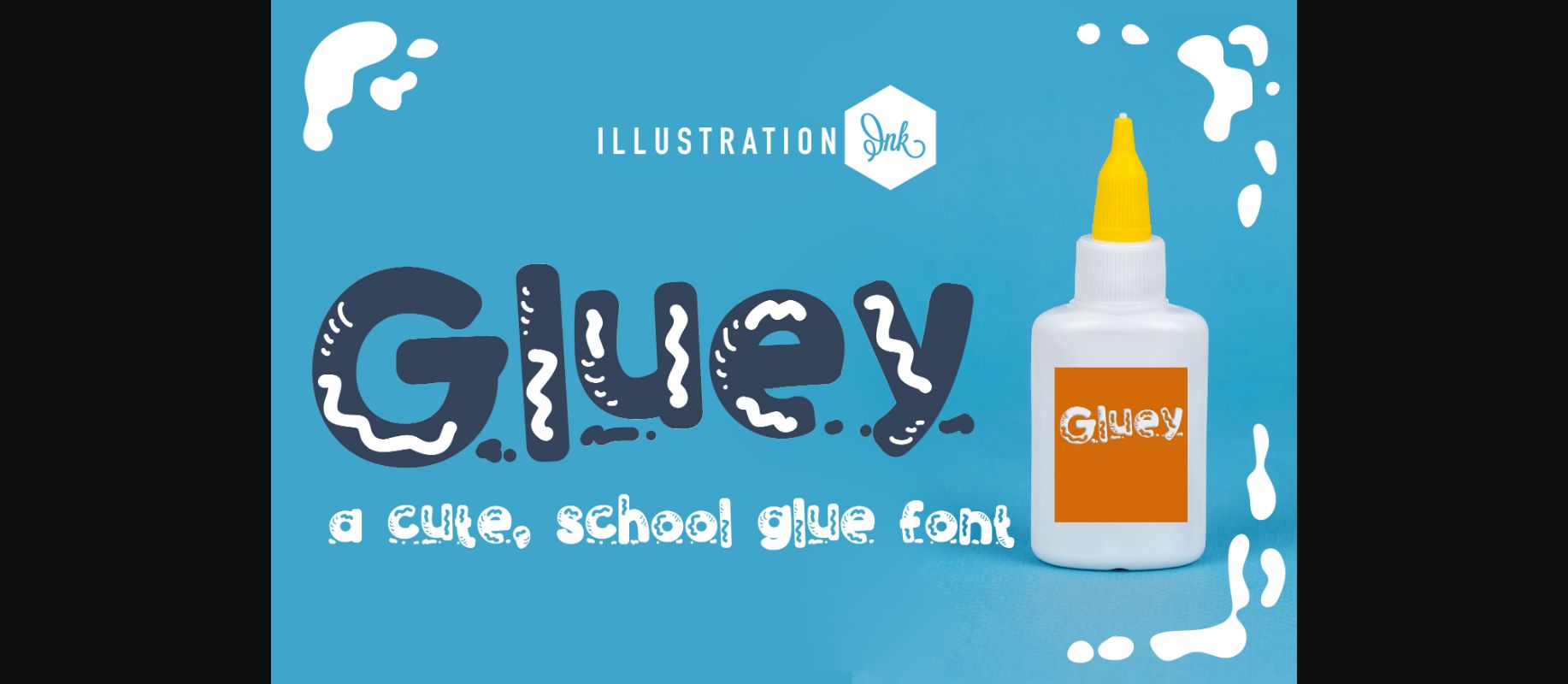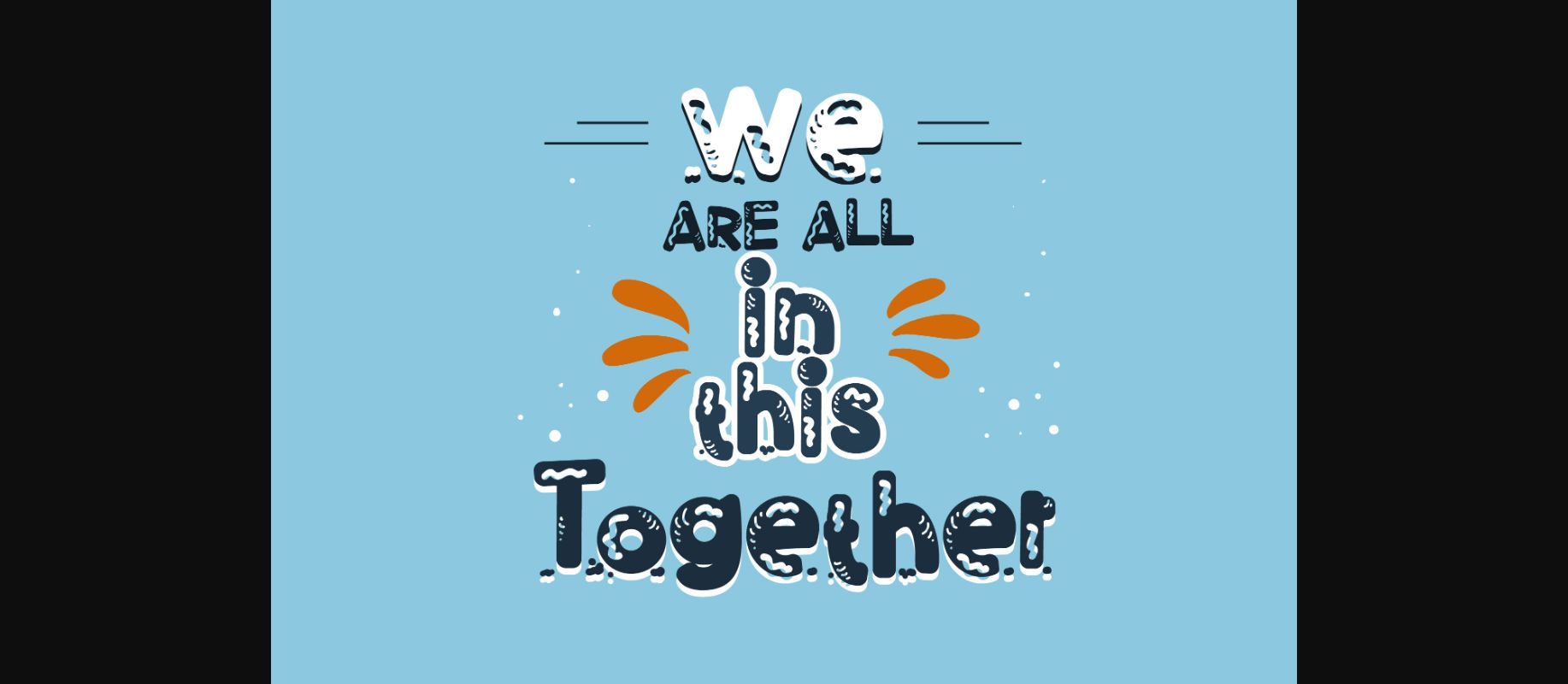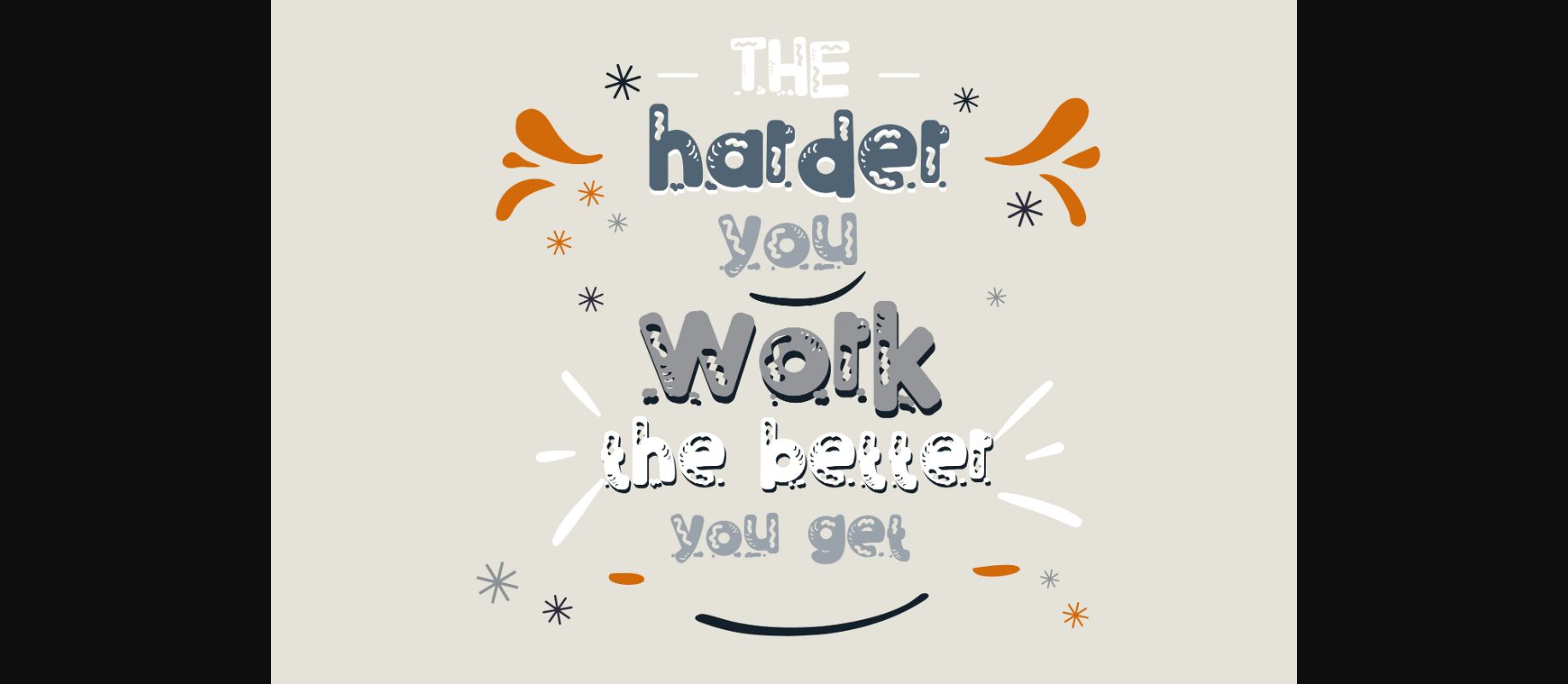
About Gluey Font
Get ready to play with words using Gluey, a charming hand-written print font that adds a delightful twist to your projects. With its whimsical glue drizzles and drips, Gluey brings a touch of creative fun to invitations, crafts, and designs. Let your imagination run wild as you express your ideas with this unique and playful font, sure to stick in everyone’s minds!